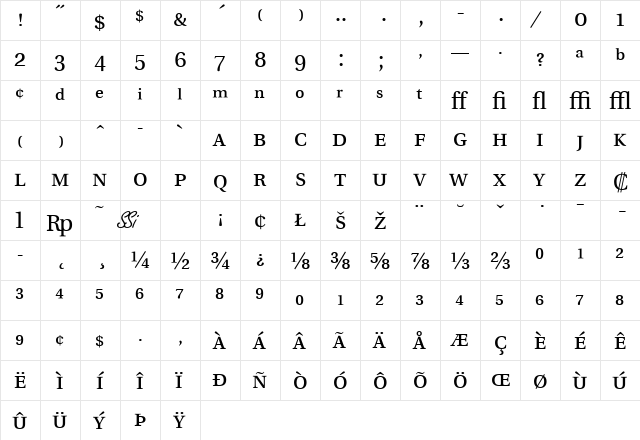
Veracity Pro SSi Regular
Design Context for Veracity Pro SSi Typeface
Veracity Pro SSi takes a measured approach to typography — its balanced proportions and neutral character make it a reliable workhorse for both digital and print work.